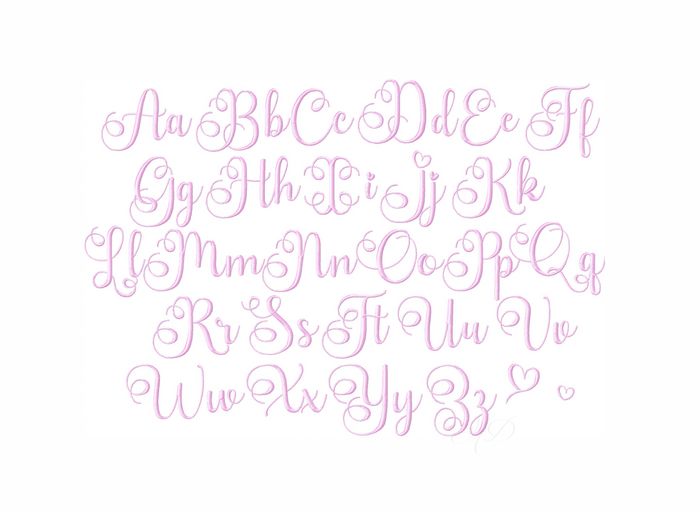
4x4 Small Baubles Embroidery Font Package
Unleash your creativity with our 4x4 Small Baubles Embroidery Font Package. This single-color satin stitch font includes uppercase and lowercase letters A-Z, along with two charming heart accents, perfect for personalizing your projects.